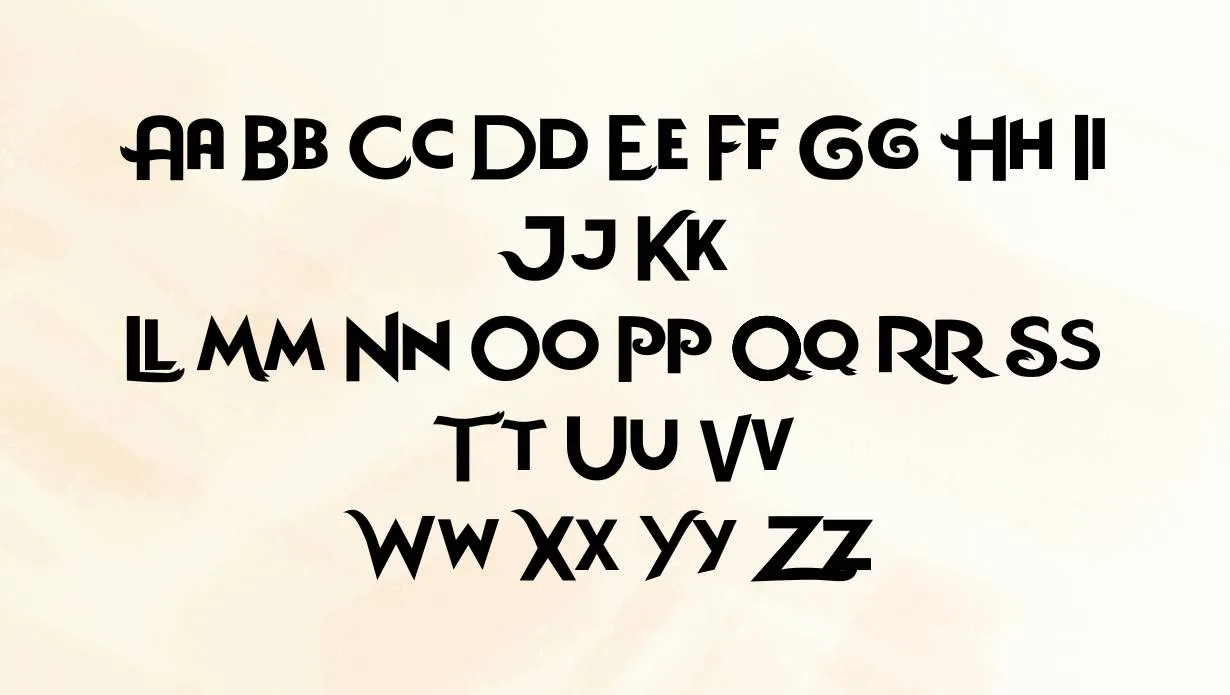
The Zootopia JPosters font exudes a fun and animated vibe. Its whimsical and bold letters are ideal for children’s books, posters, or any design that needs a cheerful and lively touch.
| Name | Zootopia JPosters Font |
| Designer | FZ Fonts |
The weight of this font is typically heavy, giving it a strong and vibrant presence. Its width is generally wider, which adds to its playful and eye-catching nature.